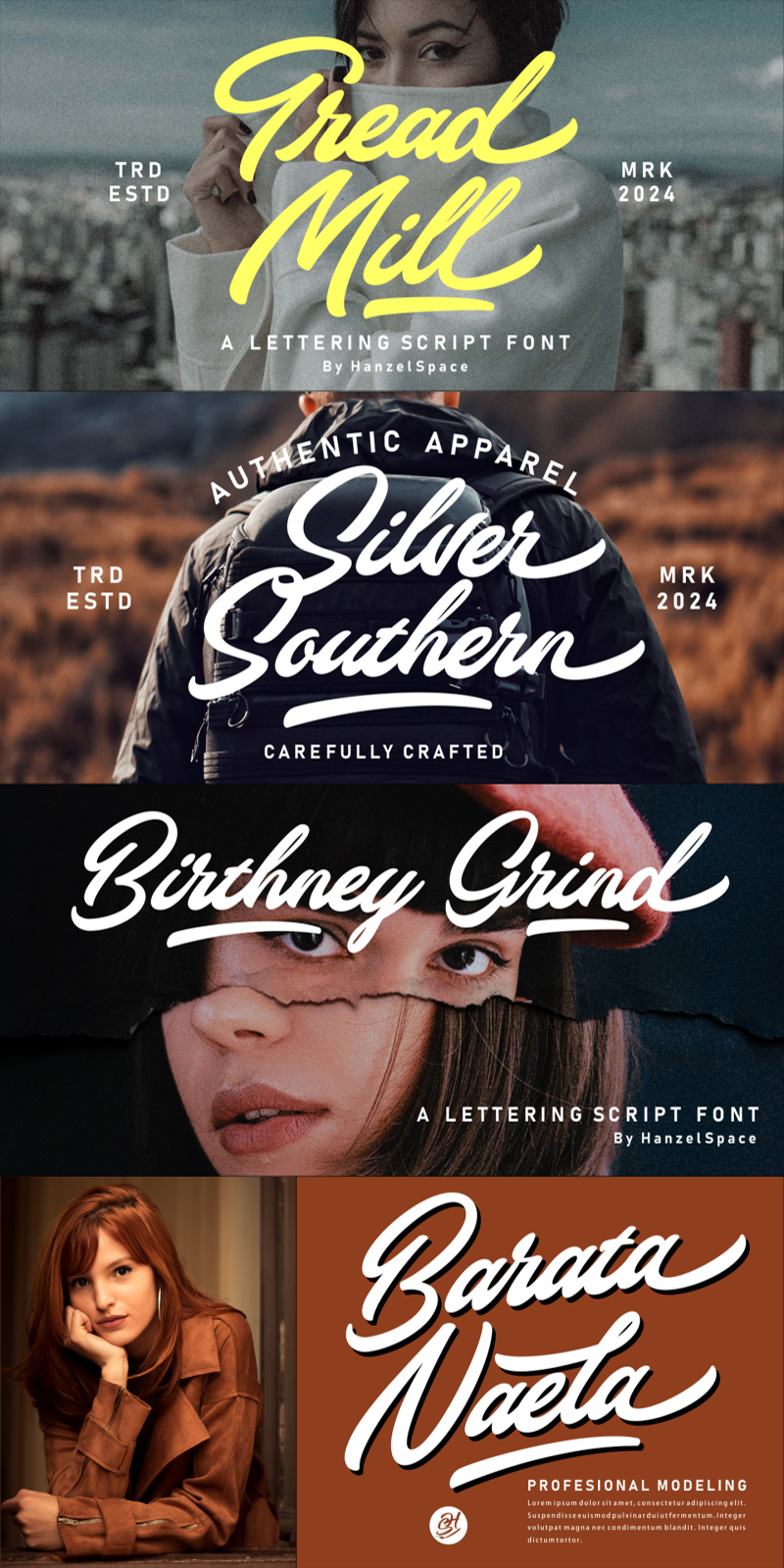
Tread Mill – A Lettering Script Font Font
About Tread Mill – A Lettering Script Font
Are you looking for a modern trandy script font? Do you want to create something that stands out and inspires
endless creativity, imagination and fun? What are you waiting for, we will provide the best choice for you.
Tread Mill - A Lettering Script Font
Tread Mill script is a Lettering Font with a touch of vintage look and feel. The swashes makes this font looks great for Lettering which you can create in a sec! This type of font perfectly made to be applied especially in logo, headline, signage and the other various formal forms such as invitations, labels, logos, magazines, books, greeting / wedding cards, packaging, fashion, make up, stationery, novels, labels or any type of advertising purpose.
– Full Set of standard alphabet and punctuation
– Multilingual Characters (ÁÂÄÀÅÃÆÇÐÉÊËÈÍÎÏÌÑÓÔÖÒØÕÚÛÜÙẂŴẄẀÝŶŸỲ áâäàåãæçðéêëèíîïìñóôöòøõœúûüùẃŵẅẁýŷÿỳ€£¥)